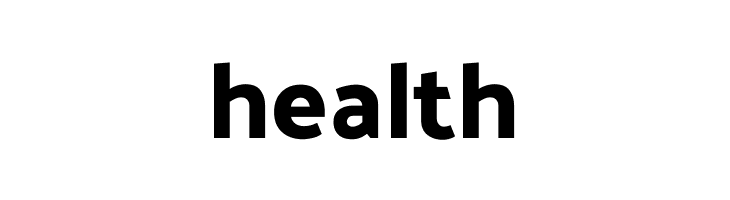
A playful, dotted line font with a whimsical, hand-drawn style.
A chess-themed icon font with bold, geometric piece designs.
A sketchy, hand-drawn font with textured, overlapping strokes.
A modern serif font with elegant and refined letterforms.
A modern, clean sans-serif typeface with consistent stroke width and balanced spacing.
A modern, medium-weight sans-serif font with an italic style and clean lines.
A playful, whimsical handwritten font with charming embellishments.
A playful handwritten font with a casual and friendly style.
A playful, hand-drawn font with a whimsical and childlike charm.
A playful, handwritten font with a whimsical and friendly style.
A bold, dramatic serif font with unique, theatrical serifs and strong presence.
A bold, expressive font with dynamic, flowing strokes.
A dynamic and flowing script font with elegant cursive letterforms.
A modern, extra bold sans-serif typeface with a strong and assertive presence.
A bold and italicized typeface with a modern and dynamic style.
A modern, clean sans-serif typeface with balanced proportions.
A modern, italic sans-serif font with medium weight and excellent readability.
A modern, thin sans-serif font with a clean and minimalist design.
A sleek, modern thin italic font with a minimalistic design.
A playful, handwritten font with rounded, uniform strokes.
A playful handwritten font with smooth, rounded strokes and a casual vibe.
A playful, hand-drawn font with irregular strokes and a whimsical style.